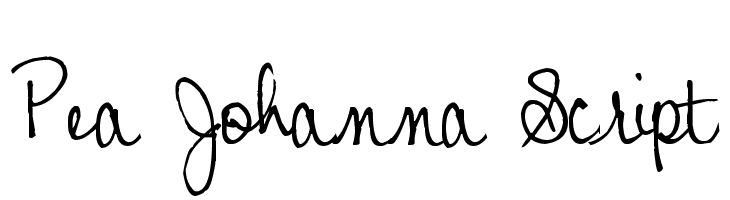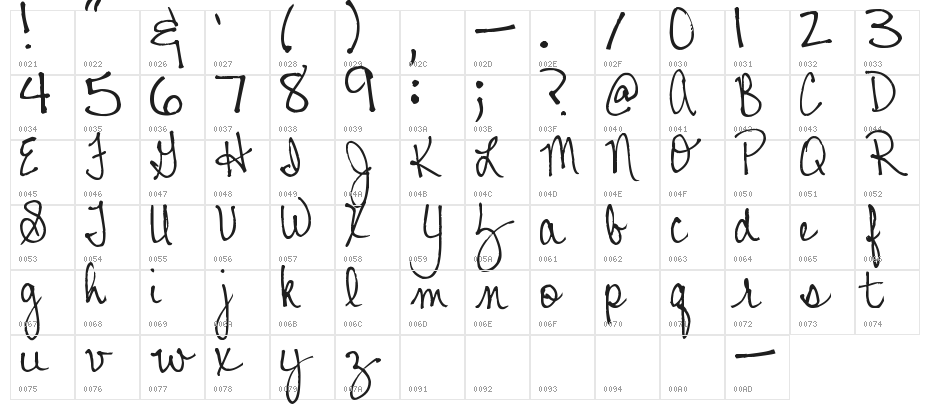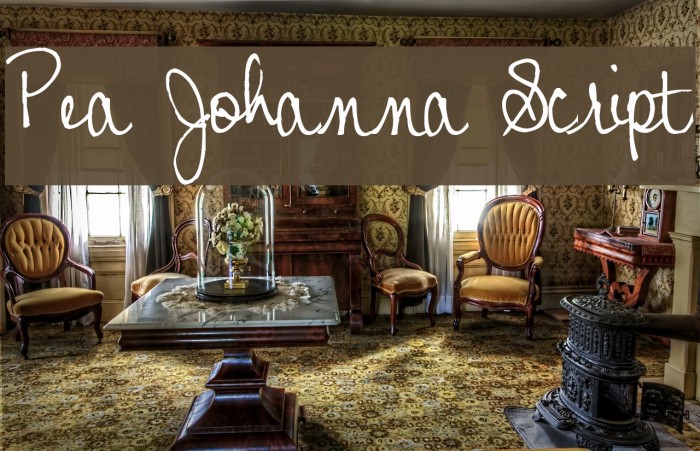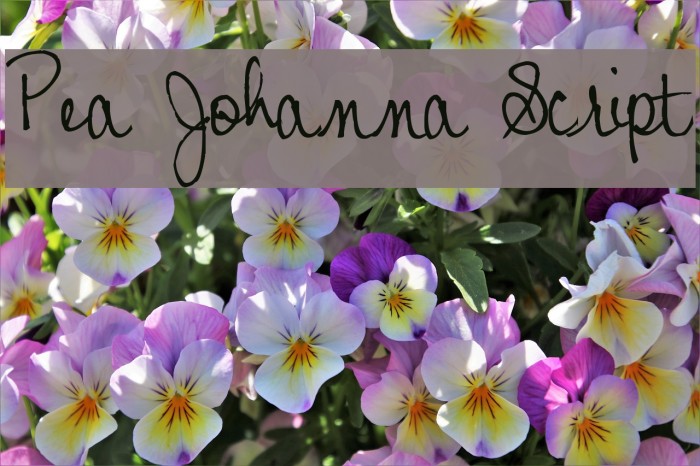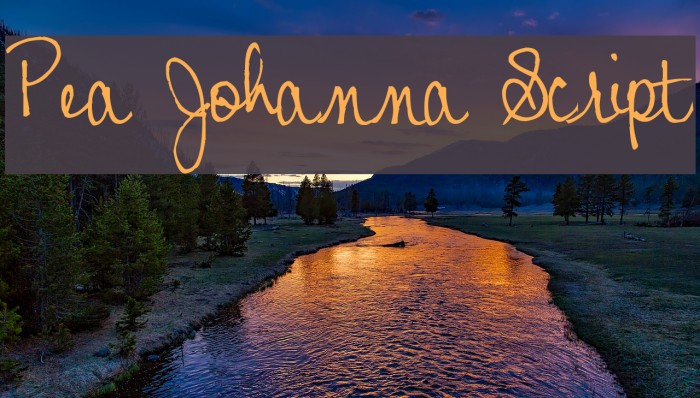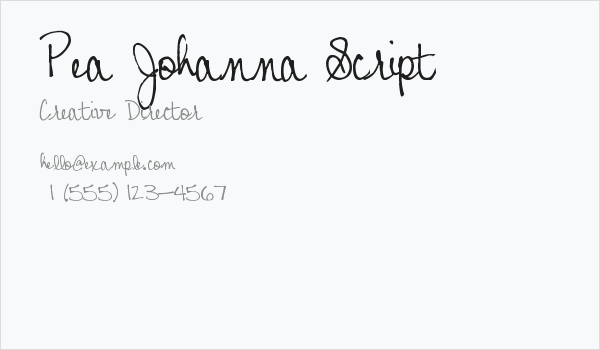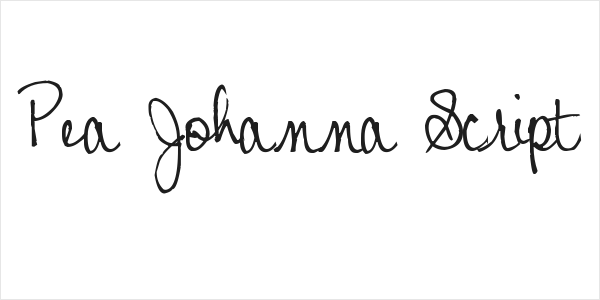
Pea Johanna Script Font
Pea Johanna Script Description
This font exudes a playful and casual handwritten style, characterized by its fluid and connected strokes. The letters are crafted with a natural flow, giving the impression of a personal touch. The uppercase letters maintain a consistent height, while the lowercase letters vary slightly, adding to the informal aesthetic. The numbers and special characters are designed to match the overall style, ensuring a cohesive look across all text. The font's organic and freeform nature makes it ideal for projects that require a personal or creative flair.
| Use Case | Logos, Invitations, Social Media Graphics |
| Proposed Projects | Ideal for personal invitations, greeting cards, creative branding, and casual social media graphics. |